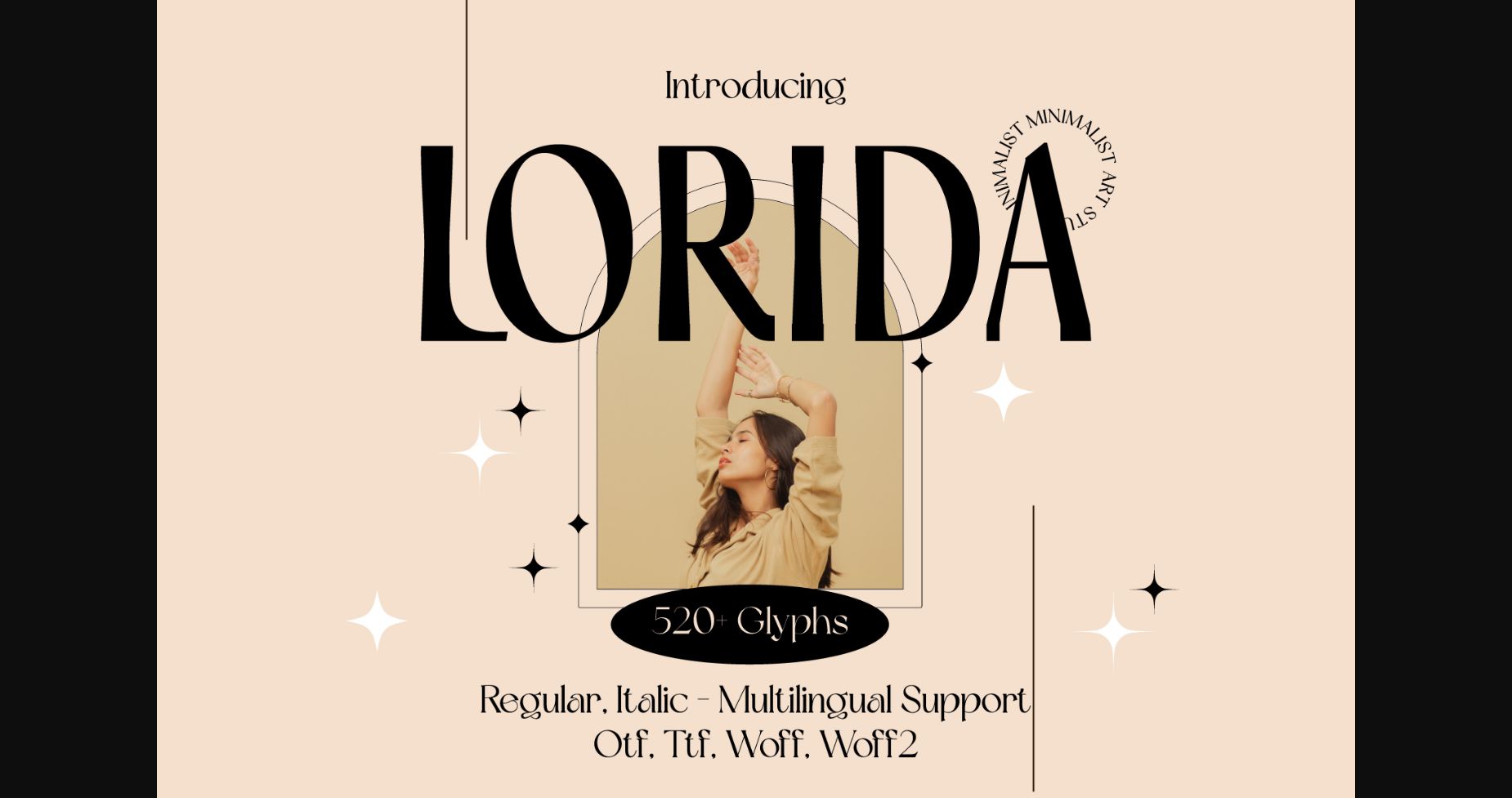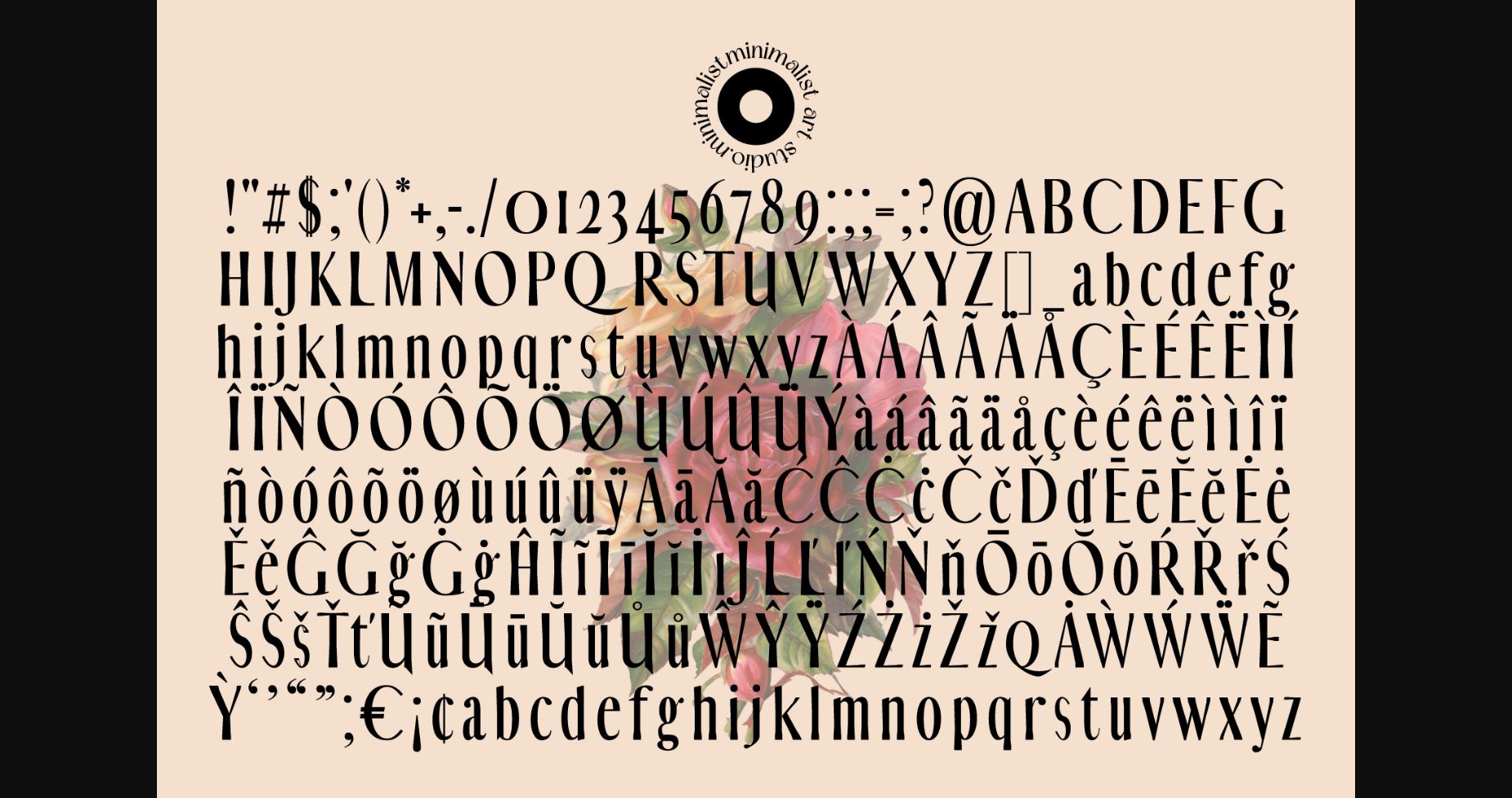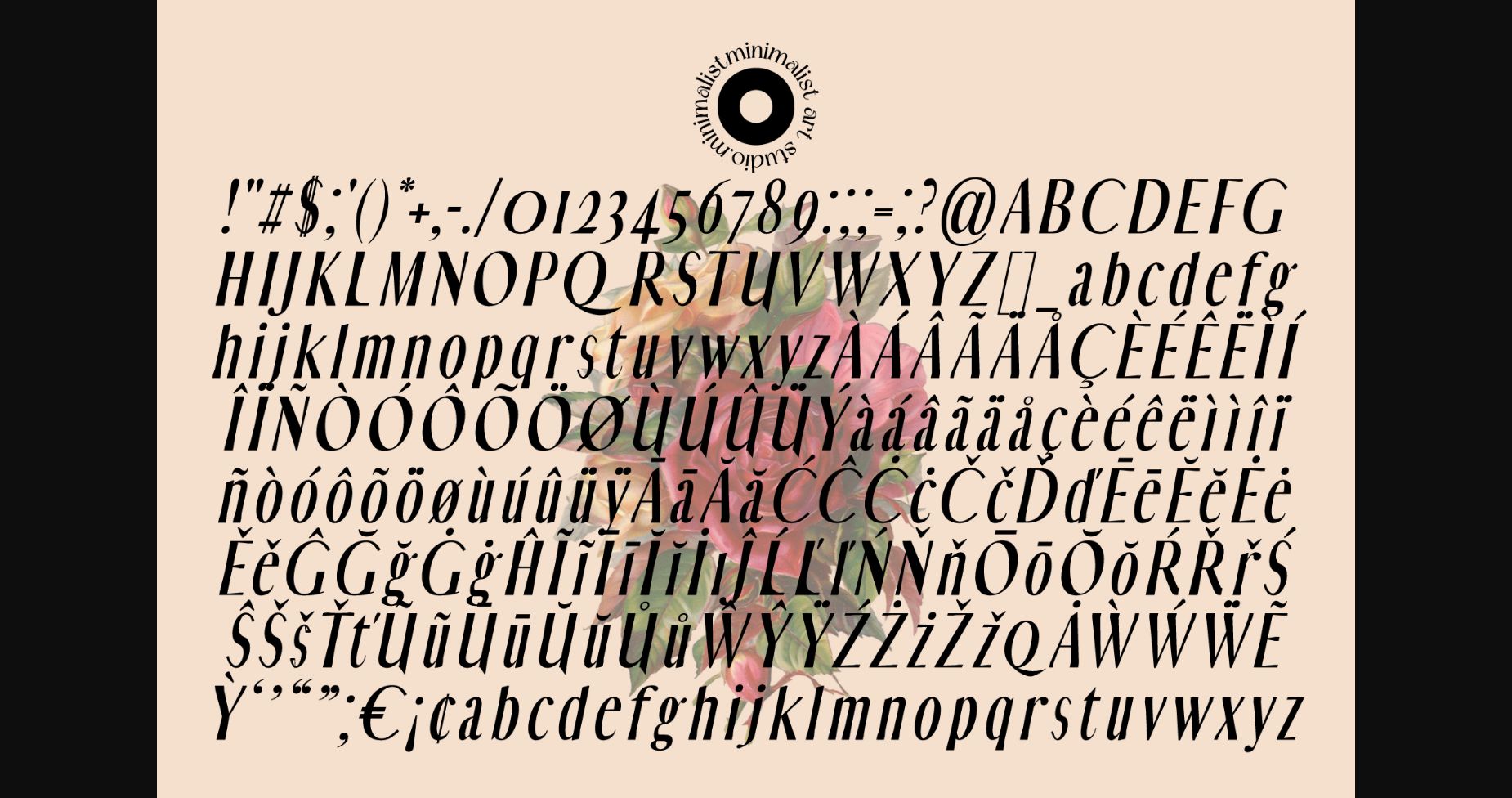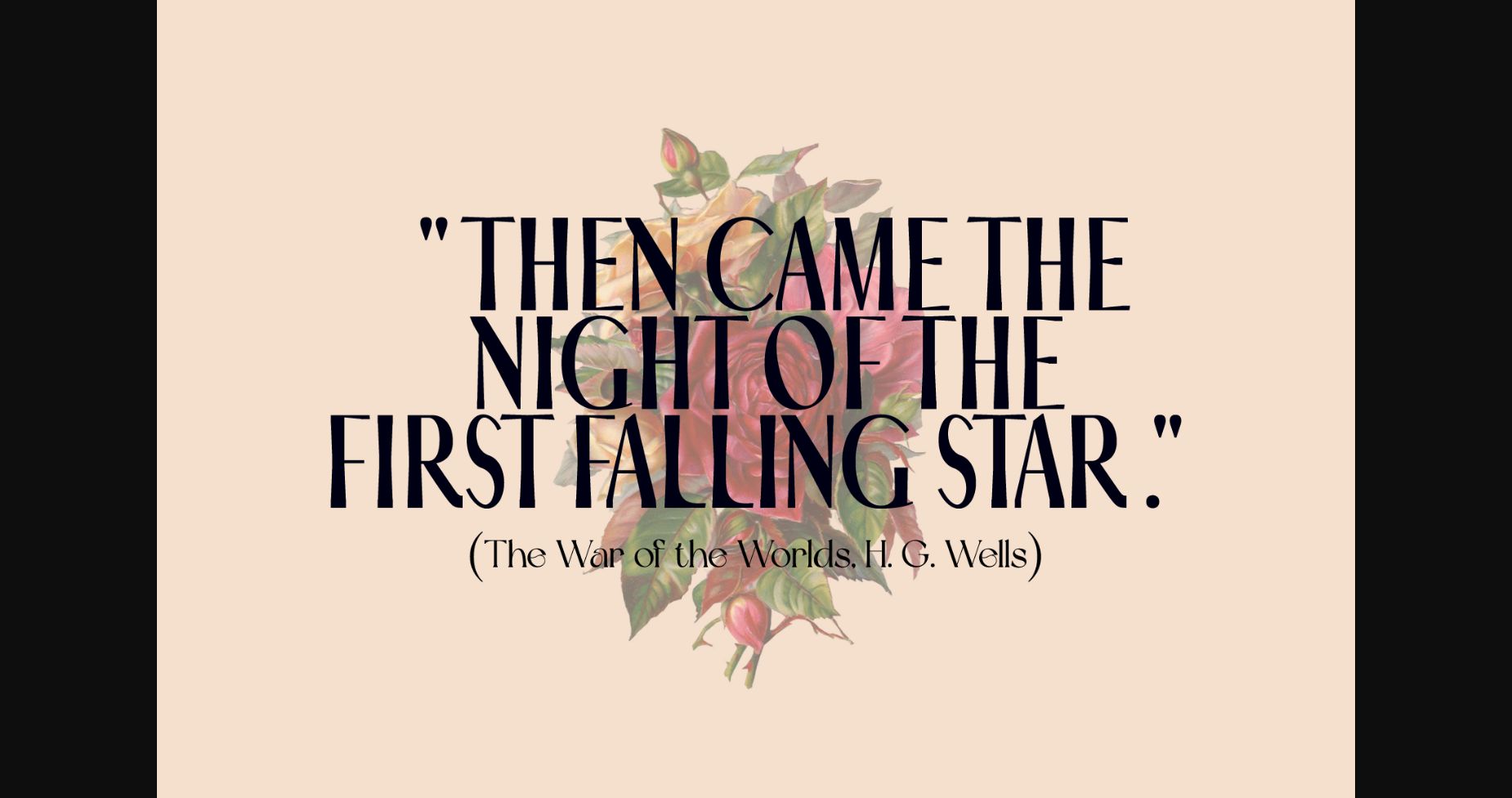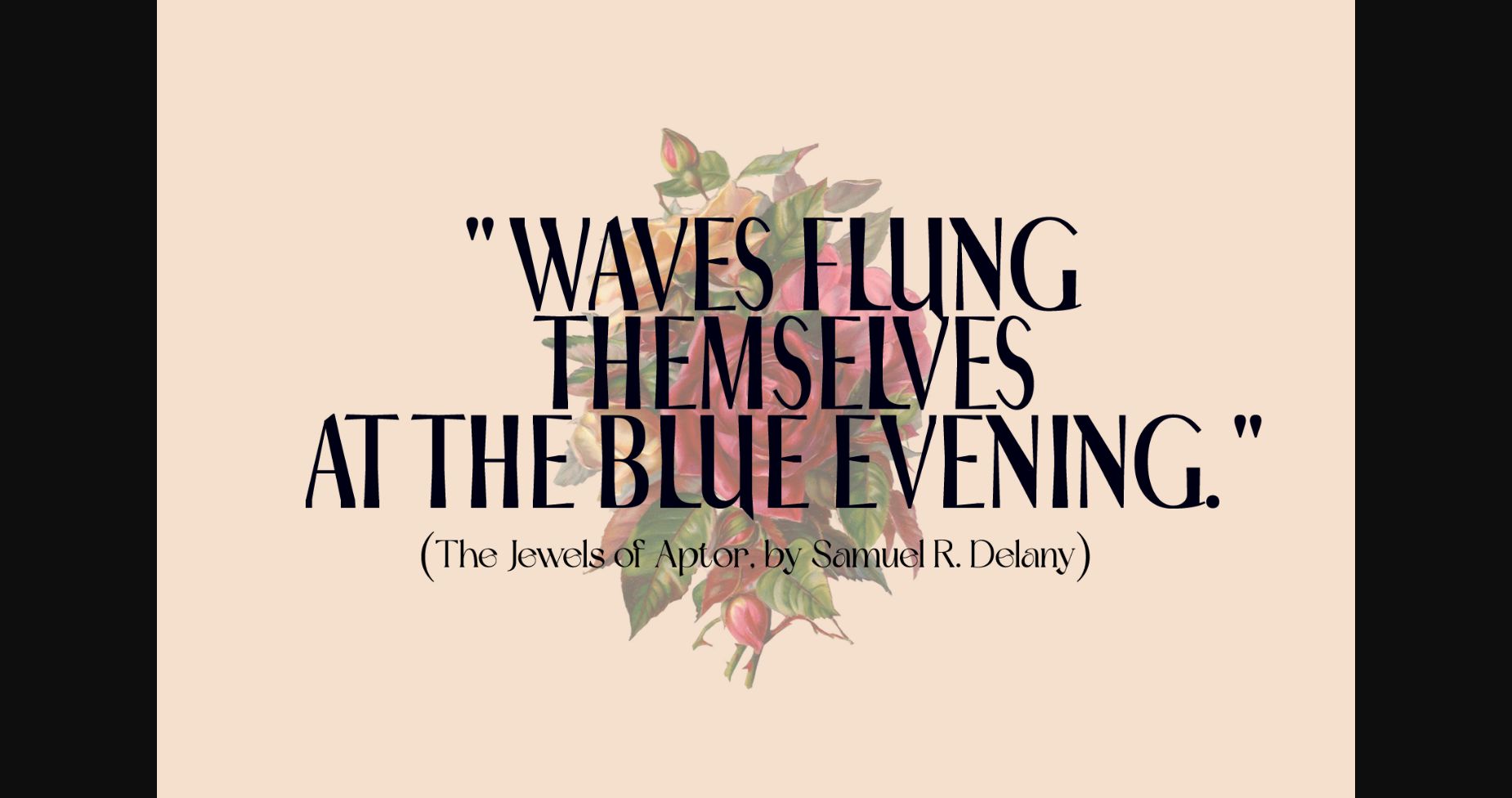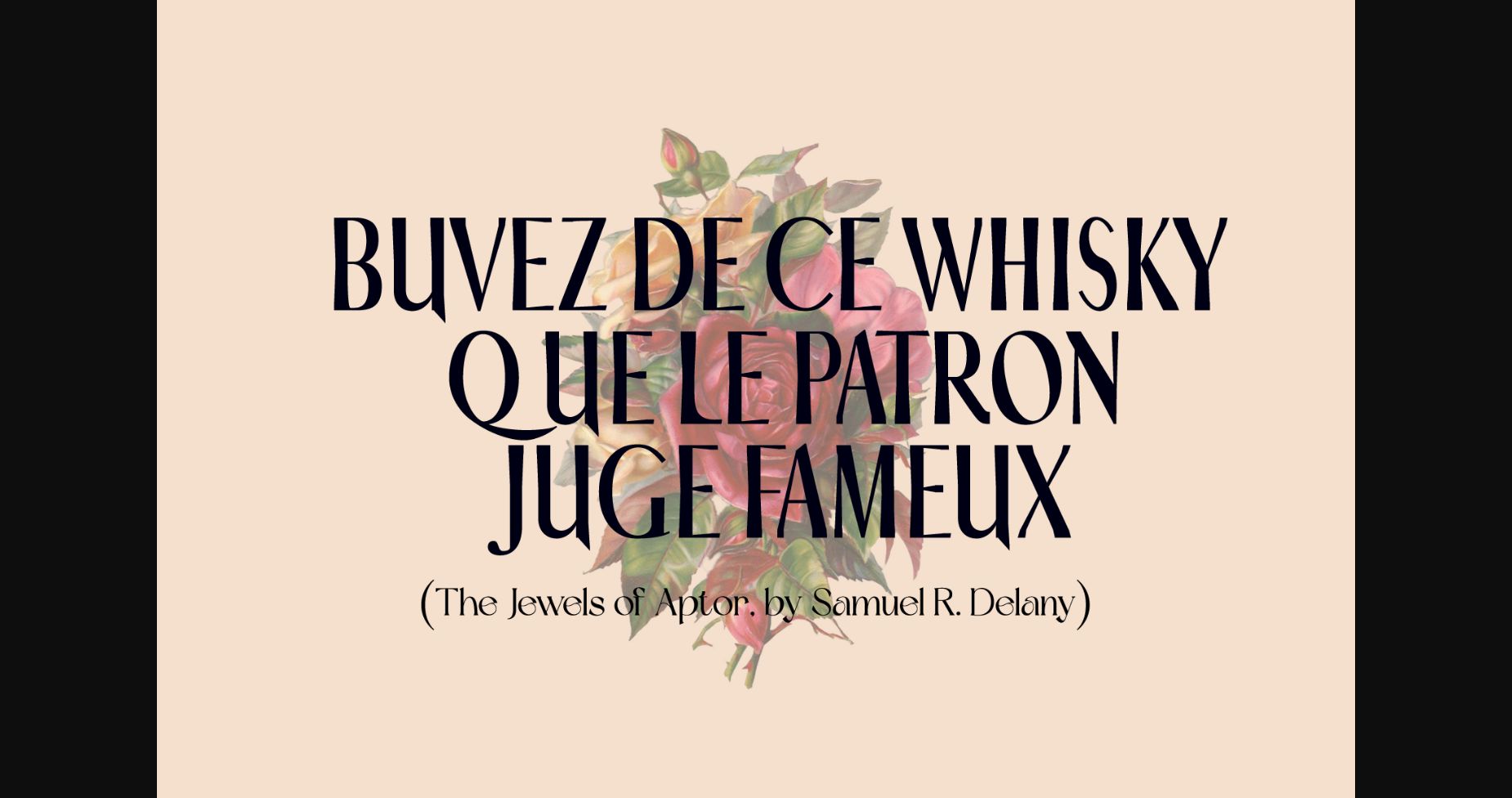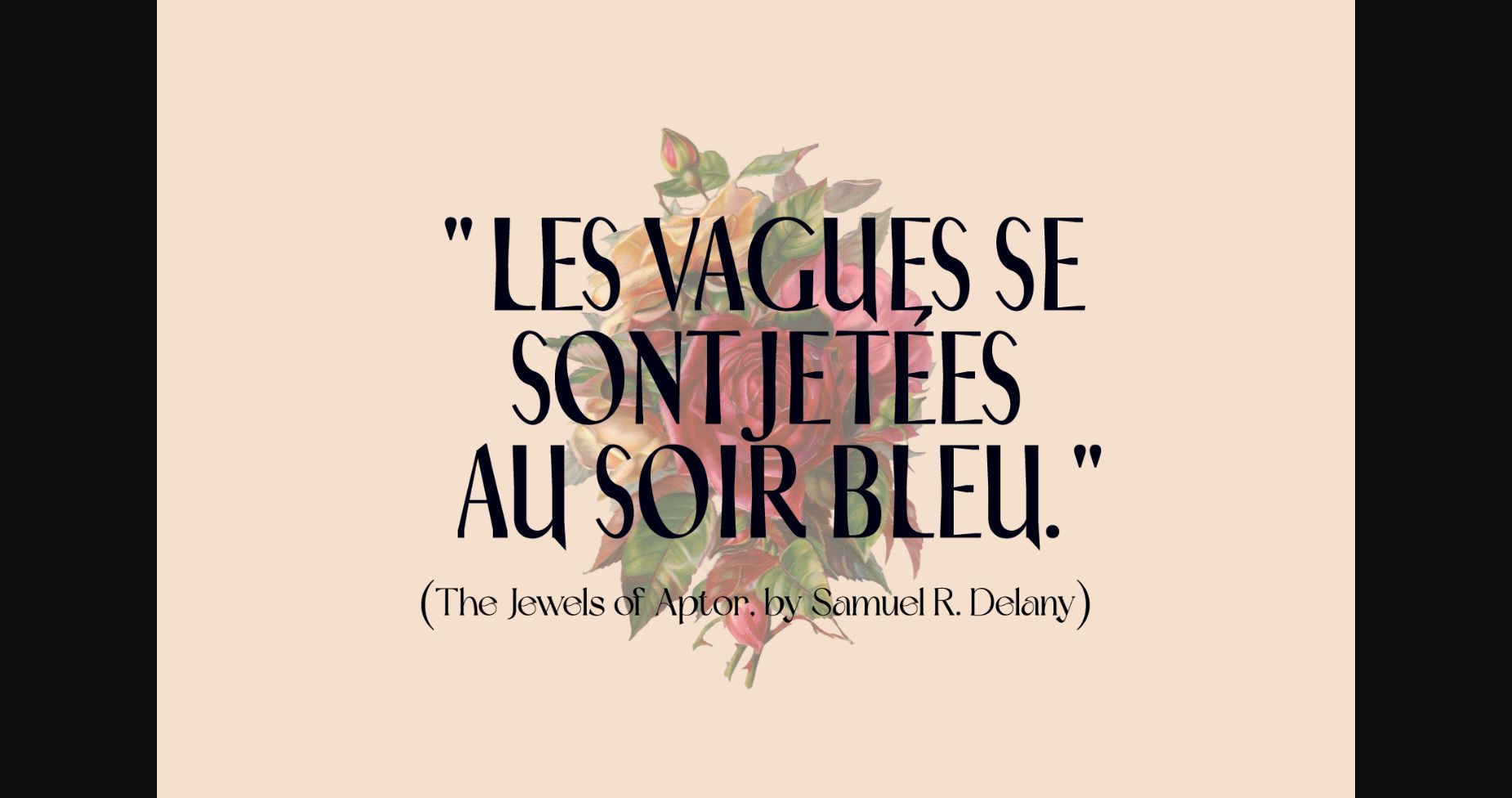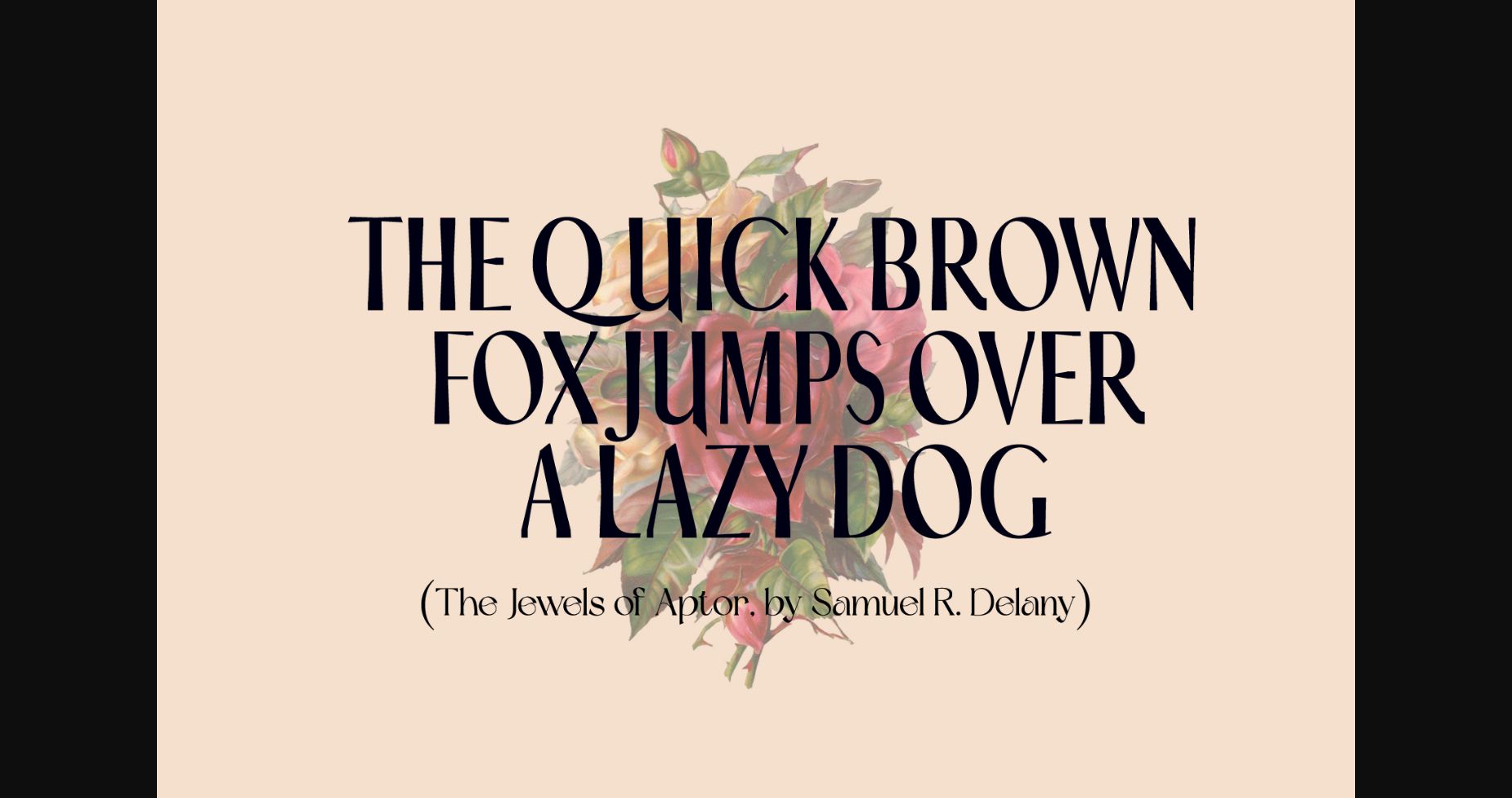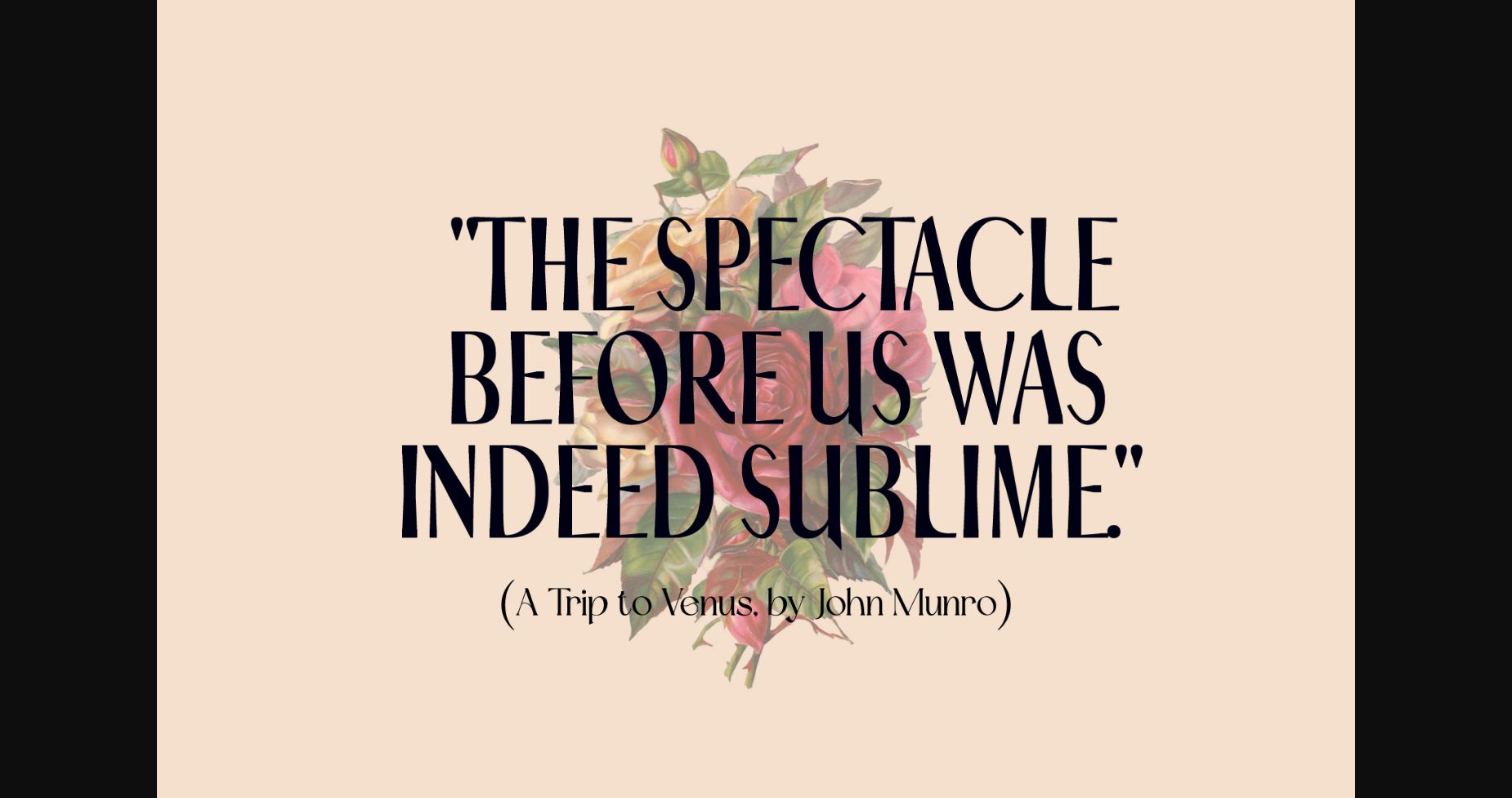
HomeSans Serif FontsLorida Font Sans Serif Fonts Lorida Font FacebookXPinterestWhatsApp 1 of 11 ... Lorida Font Poster 2... Lorida Font Poster 3... Lorida Font Poster 4... Lorida Font Poster 5... Lorida Font Poster 6... Lorida Font Poster 7... Lorida Font Poster 8... Lorida Font Poster 9... Lorida Font Poster 10... Lorida Font Poster 11... About Lorida Font Lorida is a Sans Serif font that embodies class, chic, and elegance. This versatile font is suitable for branding, editorial design, and advertising. DOWNLOAD NOW People also explored Reliance Font Hodtelvo Font Stay Wonderful Font Monde Stitch Font Sweet Heart Font Monogram Summer Gnome Font Sweet Valentine Font Garnite Font Clothing Facktory Font 338 0 TagsLoridaLorida Font Previous articleY.o.l.o FontNext articleSavannah Font LEAVE A REPLY Cancel reply Comment: Please enter your comment! Name:* Please enter your name here Email:* You have entered an incorrect email address! Please enter your email address here Website: Save my name, email, and website in this browser for the next time I comment. Personal Use Free Love Ya Personal Use Free Read more about this font Bally Girl Personal Use Free Read more about this font Girls Personal Use Free Read more about this font England Personal Use Free Read more about this font BLOG Where to Buy American Fonts Online in 2024 Where to Buy American Fonts Online: The Ultimate Guide for 2024 Looking for the perfect American font to elevate your design projects? You're in the... Best Fonts for T-Shirt Design – Top 2025 Picks Top 10 Handwritten Fonts That Elevate Your Designs Free Fonts Risk: Why Free Fonts Can Be Dangerous for Designers